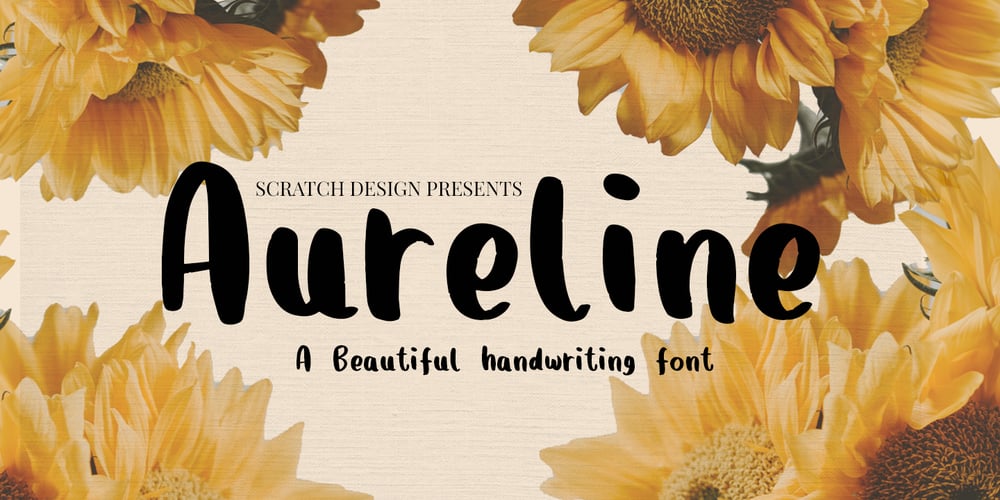
Aureline Font Family was designed by Gitayogi Irhandi and published by Scratch Design. Aureline contains 1 styles and family package options. Introducing Aureline, a stunning handwritten sans serif font that exudes elegance. With the charm of a brush font, it boasts a beautiful, simple, and graceful character. It does not have a perfect shape but beauty is not always perfect. Perfect for adding a touch of sophistication to your projects, Aureline brings an air of beauty and refinement to any design endeavour. This font will be perfect for ads, branding, headlines, posters, logos and others.You will get: Uppercase and lowercase Numbers and Punctuation Multilingual support We hope you enjoy our font!